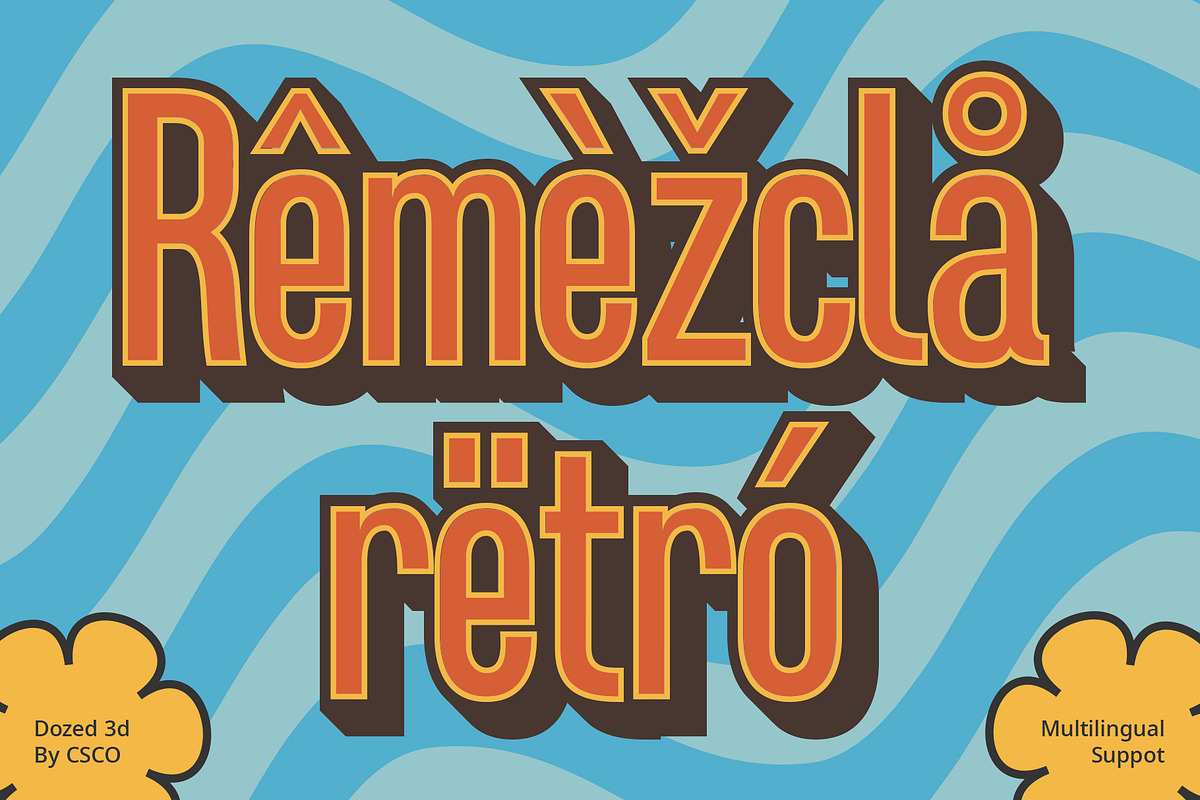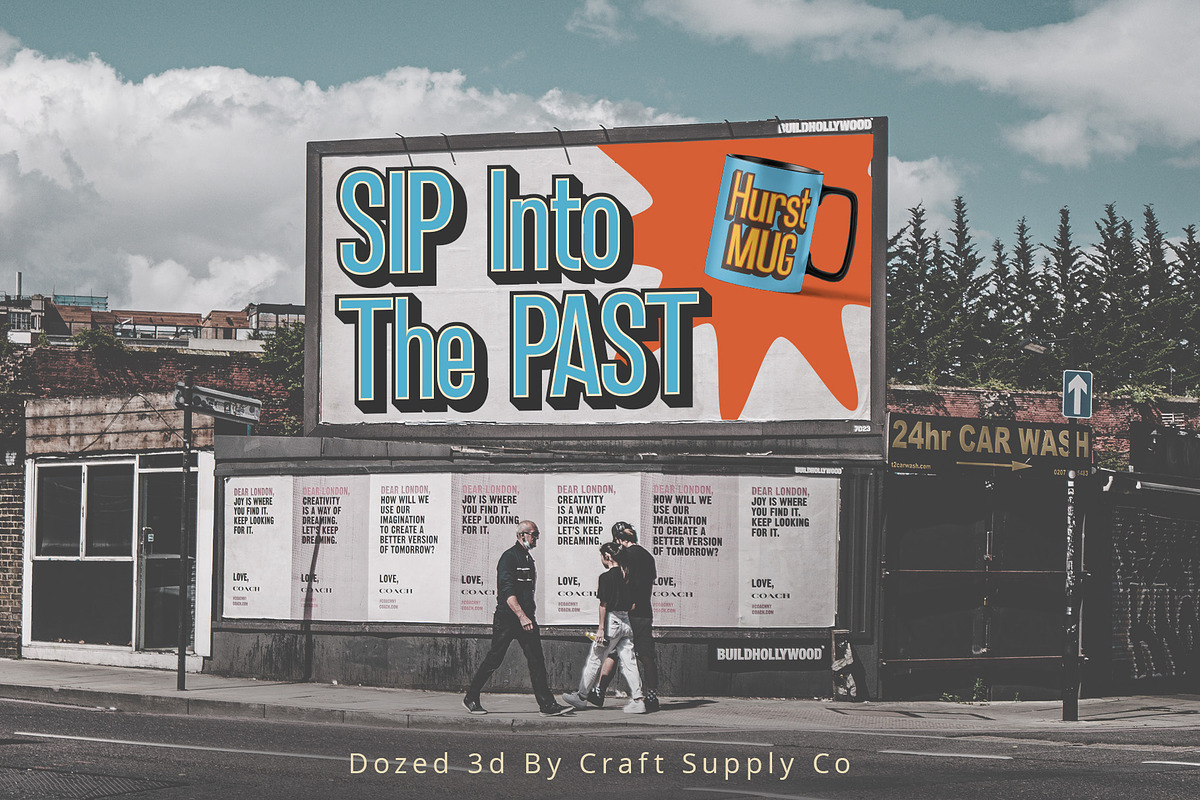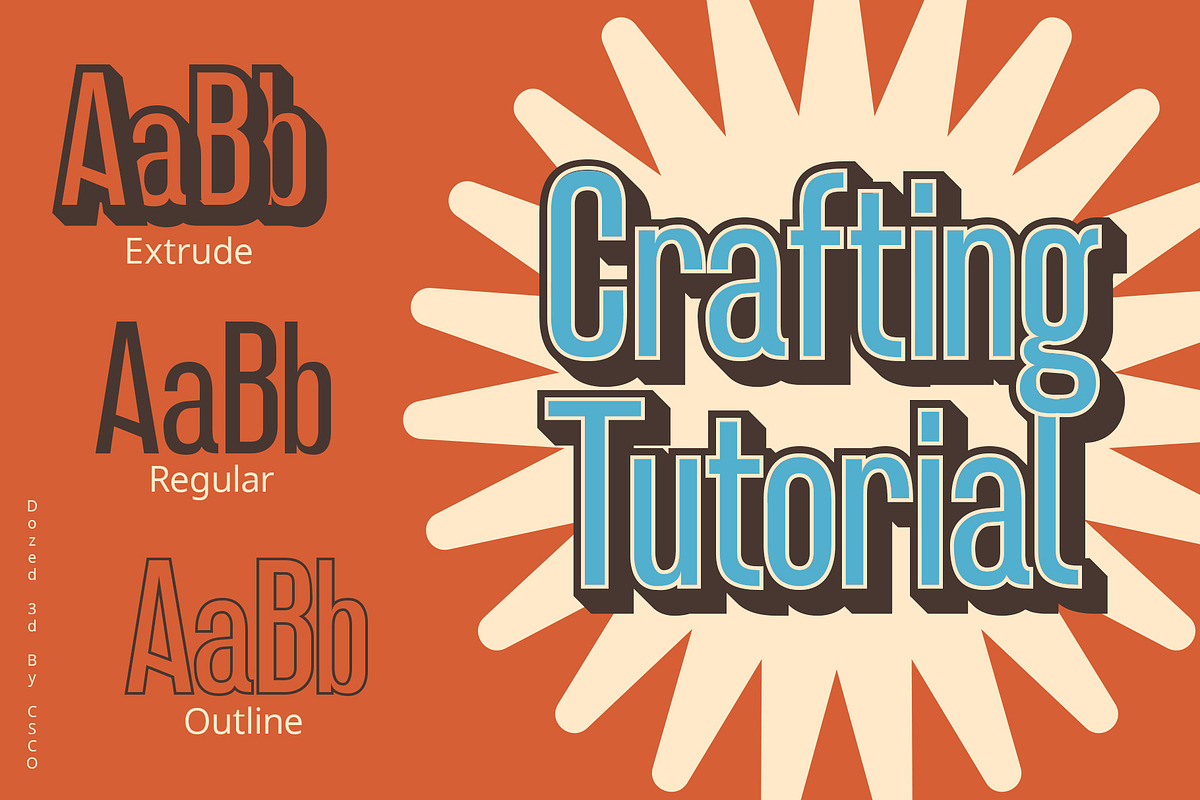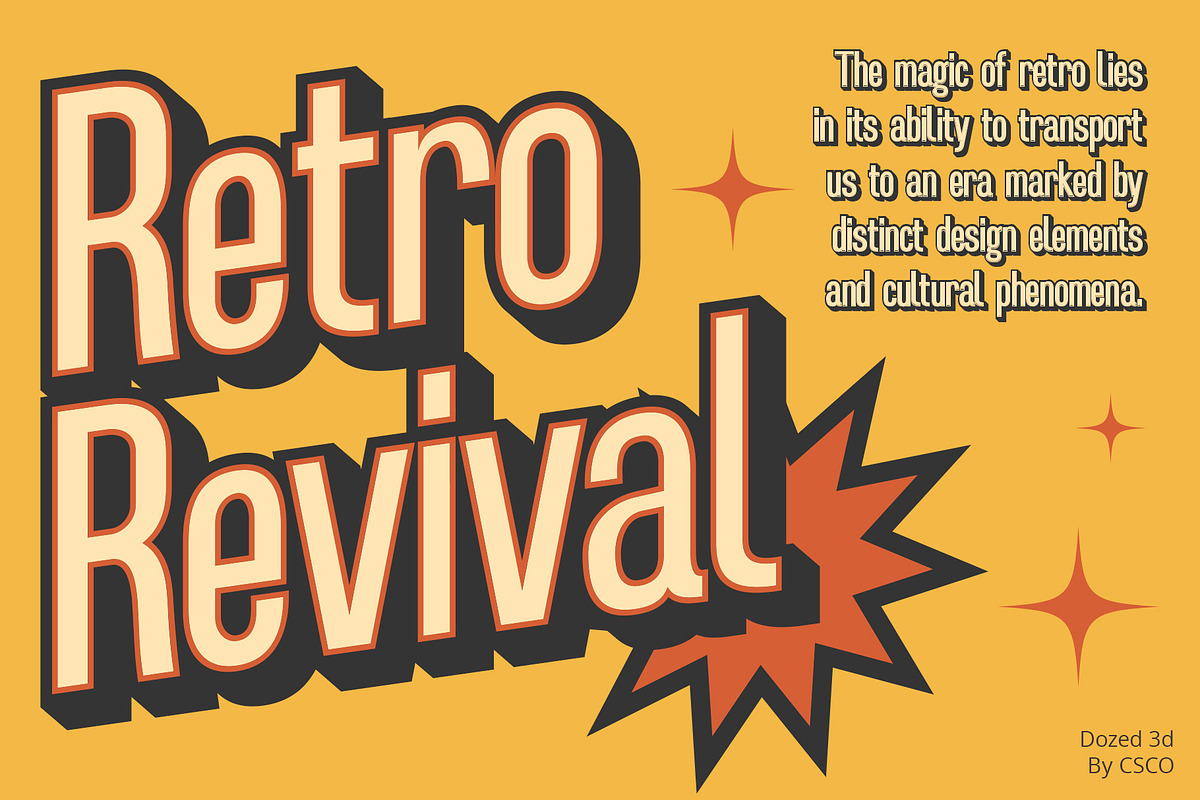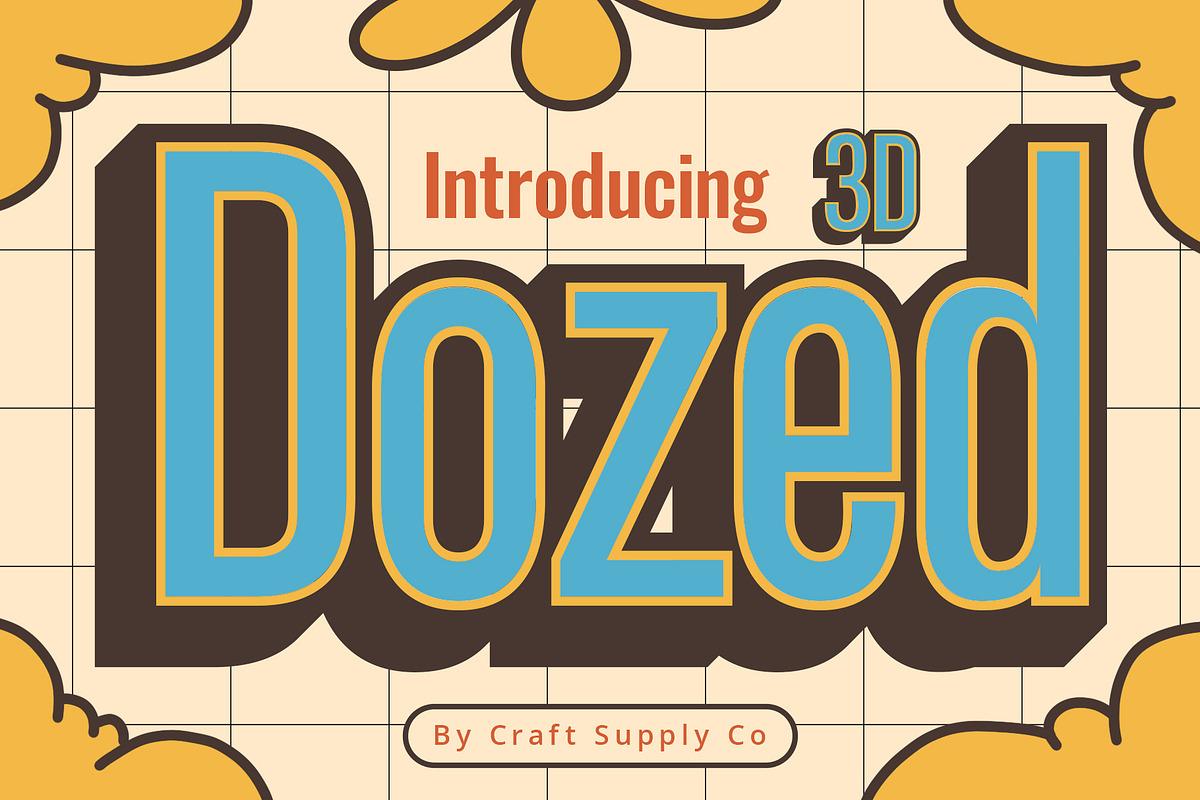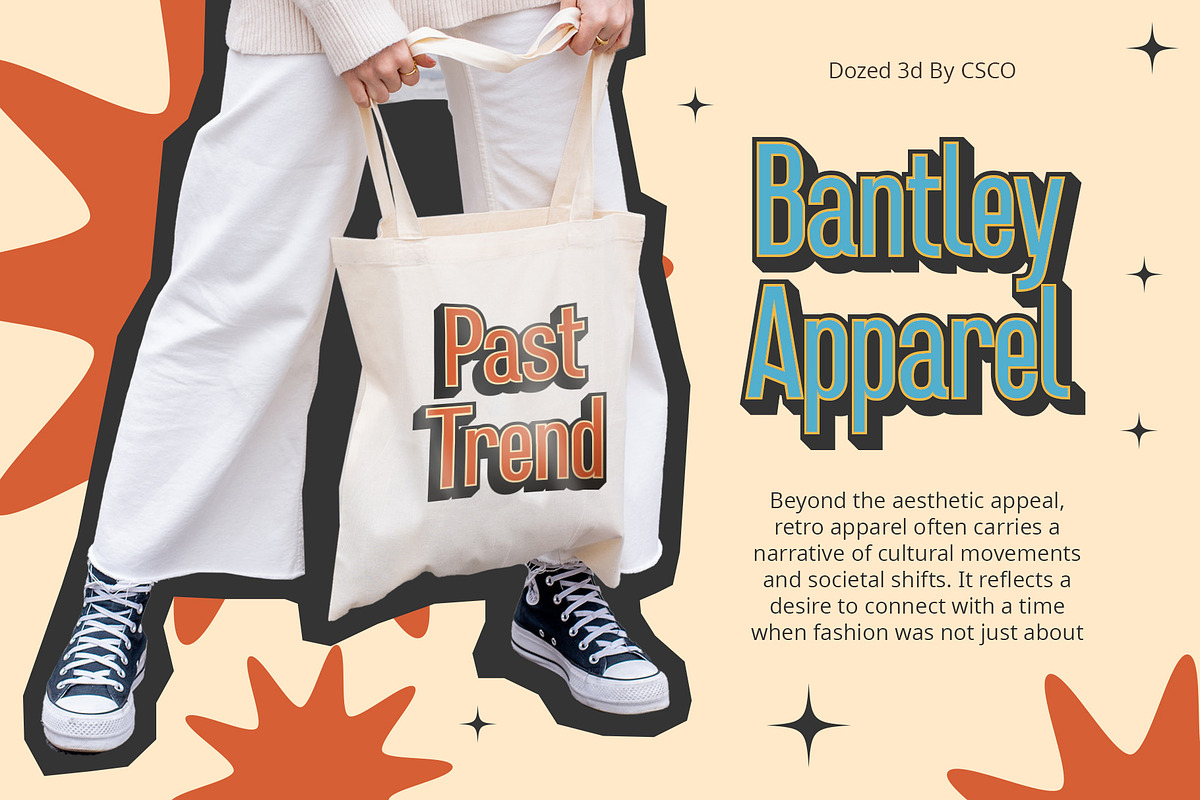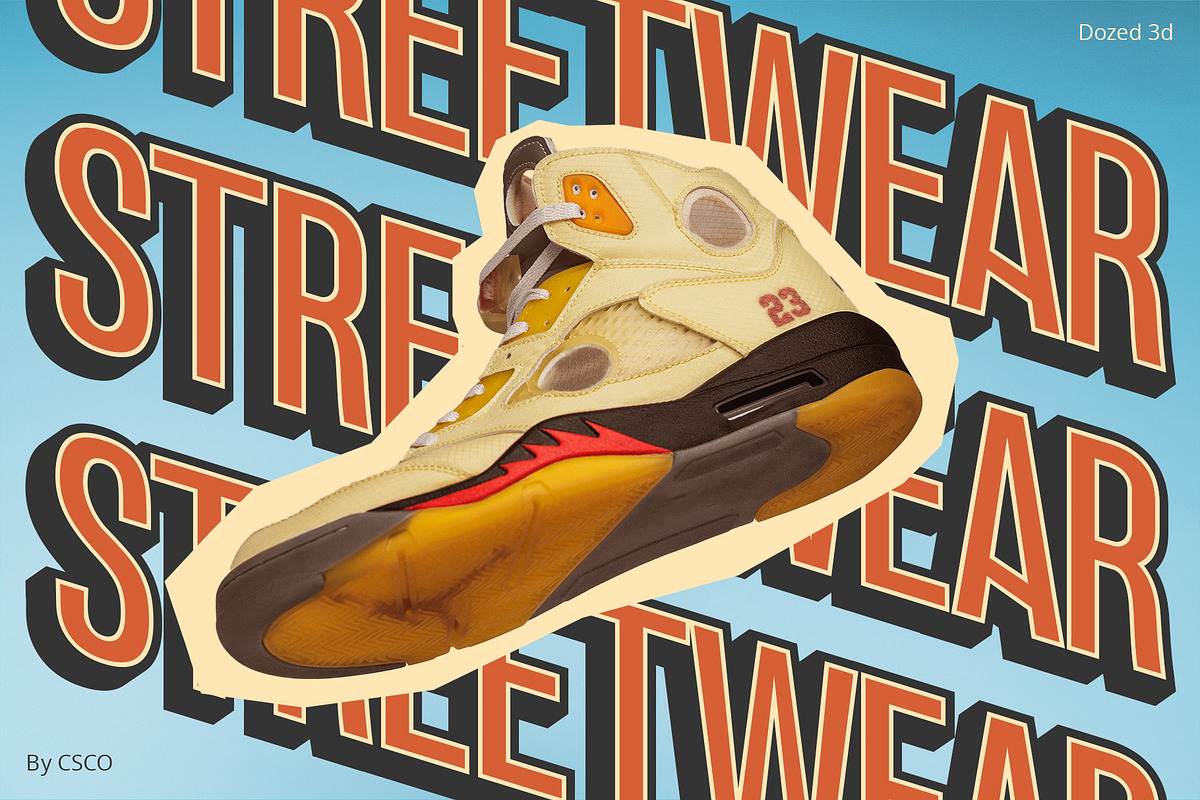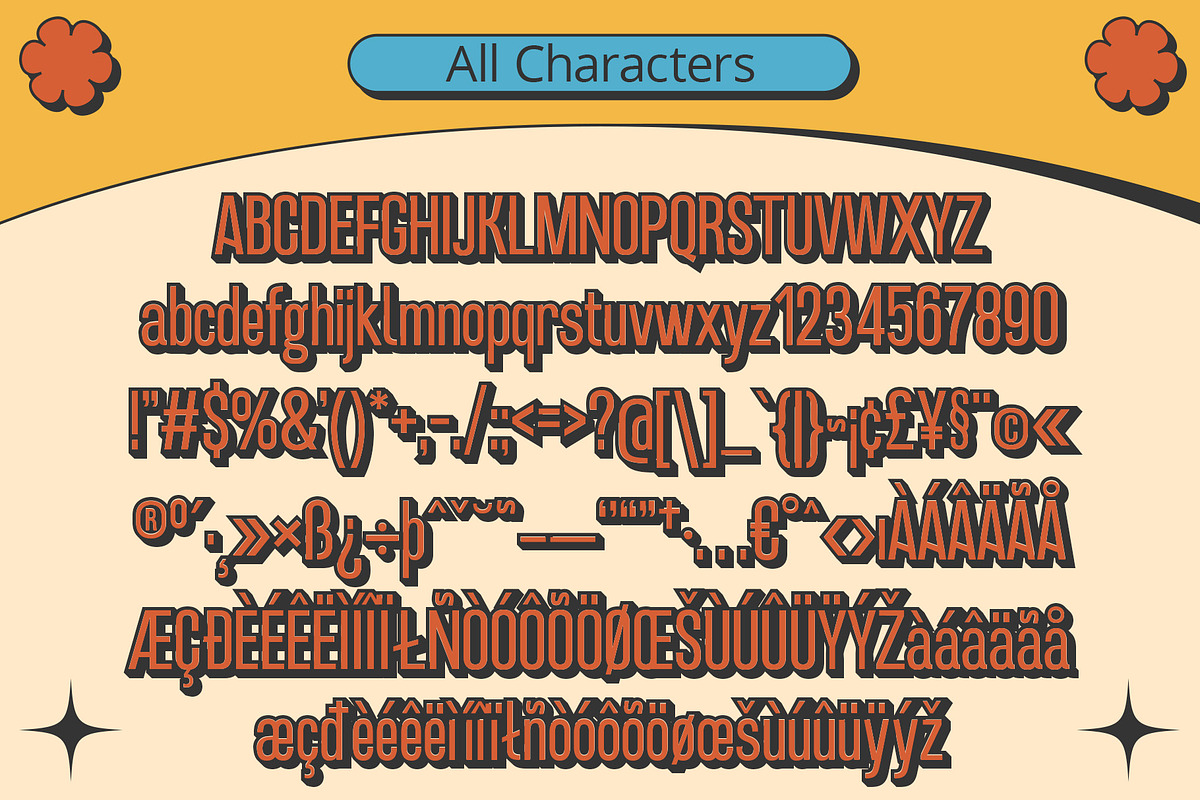
Dozed 3D
Dozed 3D Font: A Fusion of Precision and Elegance
Distinctive Condensed Form Dozed 3D showcases a bold and condensed sans-serif style, exuding professionalism with its sleek, compact design that captivates attention.
Immersive Tactile Depth Step into the future of typography as Dozed 3D breaks free from flatness. Each character is meticulously crafted, offering an immersive 3D effect that adds depth and dimensionality.
Professionalism Redefined More than just a font, Dozed 3D makes a powerful statement. Its condensed form, coupled with the 3D effect, creates a typeface that blends assertiveness with refined elegance.
Versatile for Every Context Whether integrated into corporate reports, presentations, or branding materials, Dozed 3D effortlessly adapts. Its professional demeanor guarantees clarity and readability across diverse design contexts.
In Conclusion Dozed 3D isn’t just a font; it’s a design asset that communicates professionalism through its condensed form and captivating 3D effect. Elevate your projects with this font, where every pixel resonates with precision and sophistication.
- Dozed Regular
- Dozed Outline
- Dozed Extrude Right
- Dozed Extrude Left